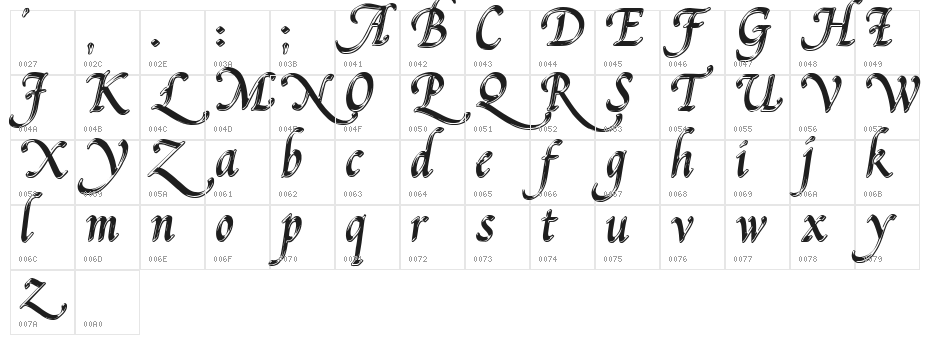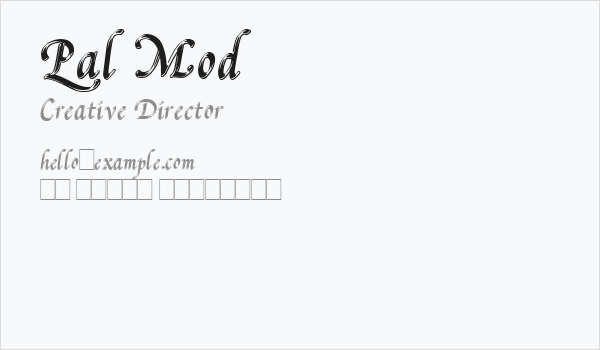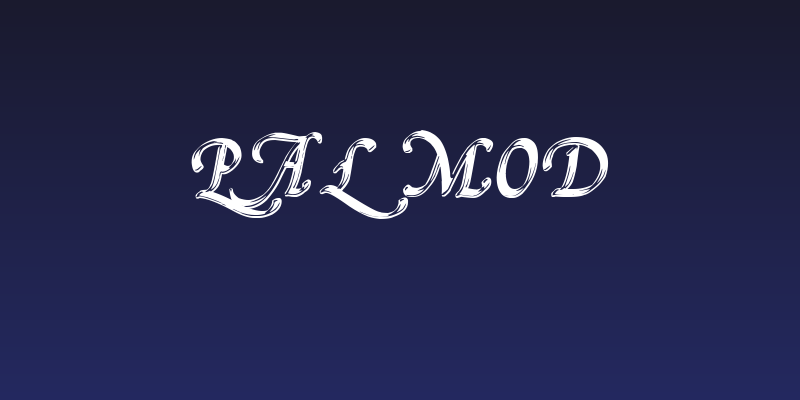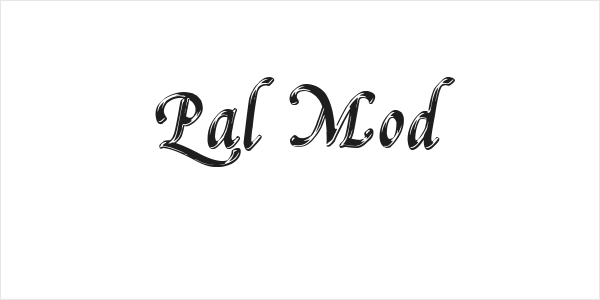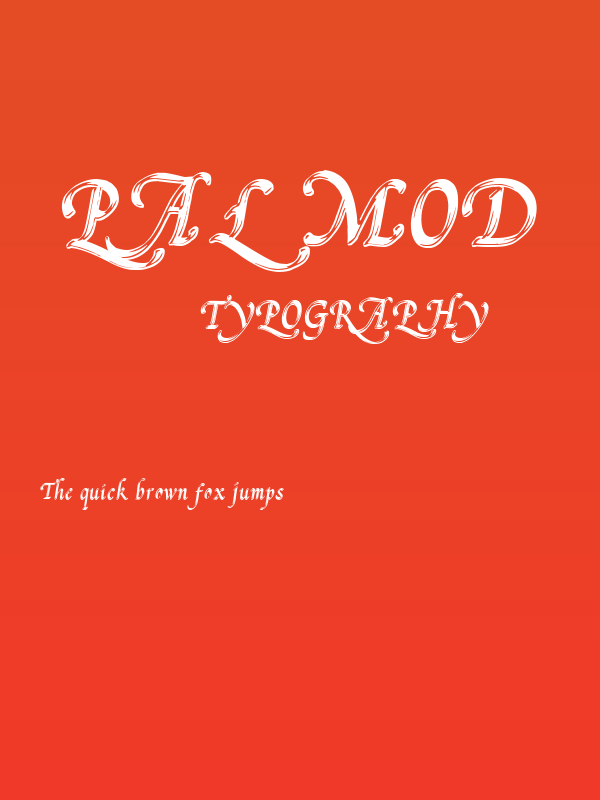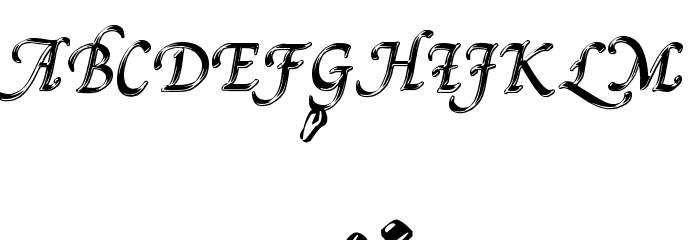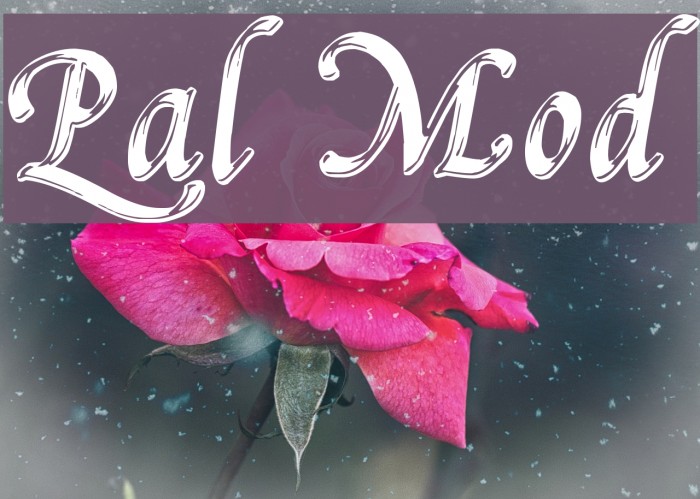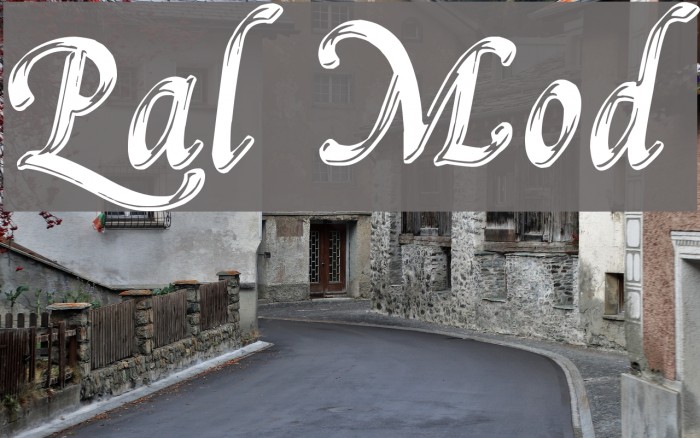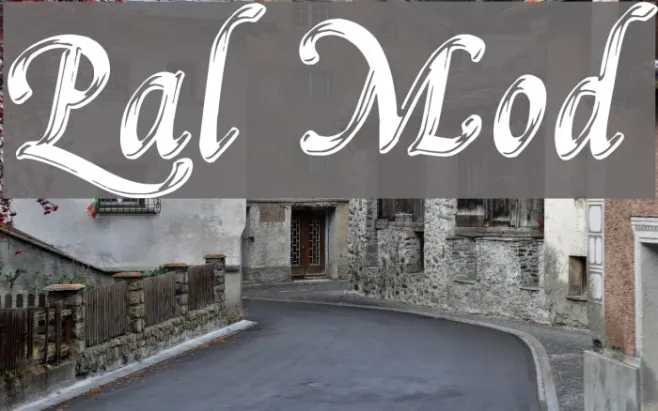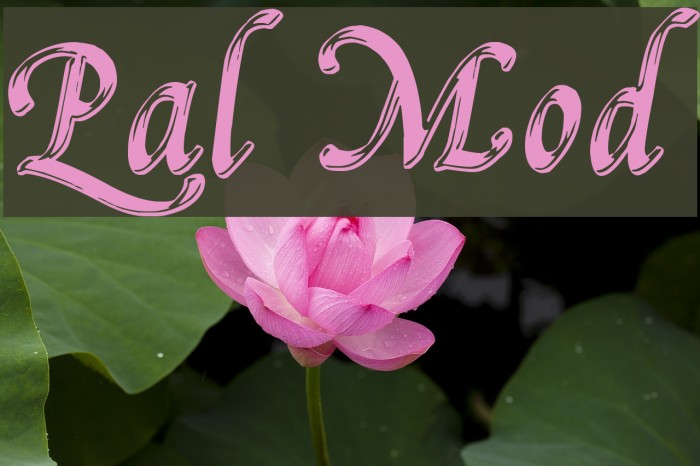
Pal Mod Font
Pal Mod Description
This font features an elegant, flowing script style with a calligraphic influence. The characters are highly decorative, with sweeping curves and flourishes that give it a sophisticated and artistic appearance. The uppercase letters are particularly ornate, with exaggerated loops and swashes that enhance their visual appeal. The lowercase letters maintain a consistent style, complementing the uppercase with their own subtle curves and embellishments. The numerals and special characters are designed to match the overall aesthetic, ensuring a cohesive look across all text. This font is ideal for projects that require a touch of elegance and creativity, such as invitations, branding, and artistic designs.
| Proposed Projects | Ideal for wedding invitations, luxury branding, artistic projects, and decorative headings. |